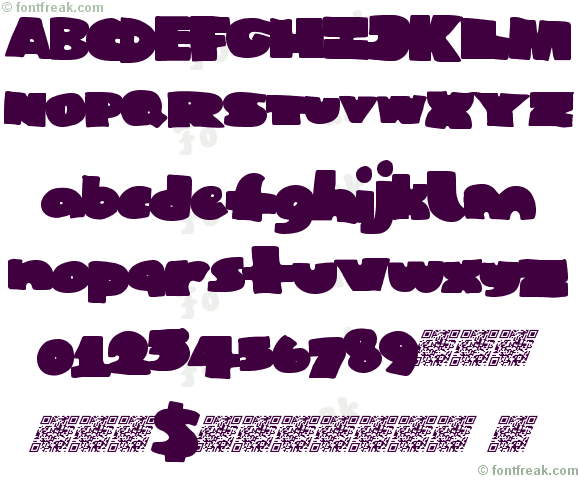
PopularCulture
About PopularCulture
Introducing the PopularCulture font by XEROGRAPHER FONTS, a dynamic display typeface that captures the essence of contemporary design trends. Released in 2014, this freeware font embodies a bold, eye-catching style that is perfect for projects aiming to make a statement. The PopularCulture font is characterized by its unique stroke weight and playful letterforms, which feature a balance between thick and thin lines that create an engaging visual rhythm. The spacing is well-considered, allowing for clarity and legibility even at larger sizes, making it an excellent choice for various design applications.
This versatile font shines in use cases such as music event posters, urban-themed branding, and trendy café menus. Its energetic aesthetic is ideal for capturing the spirit of punk culture, appealing to a youthful audience that appreciates a modern twist. Additionally, PopularCulture is suitable for graphic designers looking to add flair to their projects, as well as small business owners aiming to attract customers with fresh and vibrant visuals.
Content creators will find this font particularly useful for social media graphics, where a striking typeface can enhance engagement and convey a brand's personality. The wide array of applications combined with its unique characteristics make the PopularCulture font a valuable tool in any designer's arsenal.
What sets the PopularCulture font apart is its ability to blend nostalgia with contemporary design elements, making it both timeless and relevant. With a free download option available, it invites users to explore its potential across various mediums, ensuring that every design stands out in a crowded visual landscape. Embrace the spirit of modernity with the PopularCulture font and elevate your creative projects.